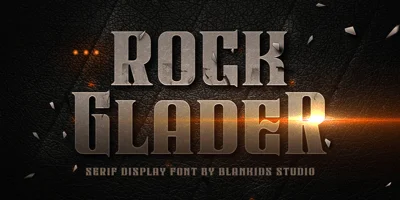
Rock Glader Font
Rock Glader Font is perfect for heavy metal band logos, rock music album covers, extreme sports branding, adventure gear packaging, mountaineering company materials, rugged outdoor equipment labels, action movie titles, and hardcore gaming interfaces. This powerful typeface brings raw intensity and mountainous strength to any design project targeting adventure seekers and rock music enthusiasts.
What makes Rock Glader Font exciting is its commanding presence that perfectly embodies the unstoppable force of glacial movement combined with the rebellious energy of rock culture. The bold, jagged letterforms feature sharp edges and dynamic angles that create an unmistakable sense of power and determination. Each character radiates the strength of ancient glaciers and the intensity of rock music, making it ideal for brands that refuse to be moved or silenced.
The Rock Glader Font family typically includes regular and bold weights with complete uppercase and lowercase letters, numbers, punctuation marks, and special characters. Many versions feature additional textured variations, distressed effects, and decorative elements that enhance the rugged aesthetic and provide creative flexibility for extreme design applications.
Whether you're developing hardcore music brands or creating adventure-themed marketing materials, Rock Glader Font delivers unmatched impact and authority. This formidable typography choice transforms ordinary text into powerful statements that resonate with audiences seeking authentic rebellion and natural strength. The font's exceptional durability ensures perfect performance across various challenging applications while maintaining its distinctive rock-solid character that makes every design project feel like an unstoppable force of nature carved from solid granite.